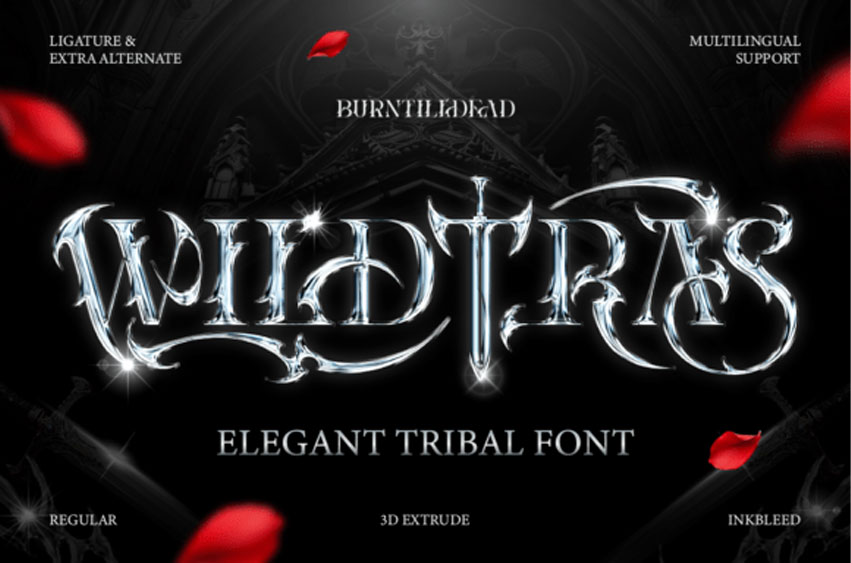
Wildtras Font
Wildtras Font is an elegant tribal display font with a dark and cinematic feel. It combines sharp tribal shapes with refined serif details, creating a strong and dramatic character.
This font includes multiple styles such as Regular, 3D Extrude, and Inkbleed, along with alternates, ligatures, and multilingual support. Easy to use and flexible for many design needs.
Perfect for the “chrome-type” trend, the Wildtras font is the go-to choice for heavy metal album covers, high-fashion streetwear branding, and gaming logos. It pairs beautifully with dark, moody photography and cinematic overlays. When you use the Wildtras typeface, you aren’t just typing text; you are engraving an identity. Use the 3D extrude and inkbleed alternates to add depth and grit to your designs, making it ideal for e-sports team jerseys or occult-themed luxury packaging. This is a font for the bold, the rebellious, and the avant-garde.
Perfect for logos, game titles, posters, book covers, branding, and fantasy-themed designs.